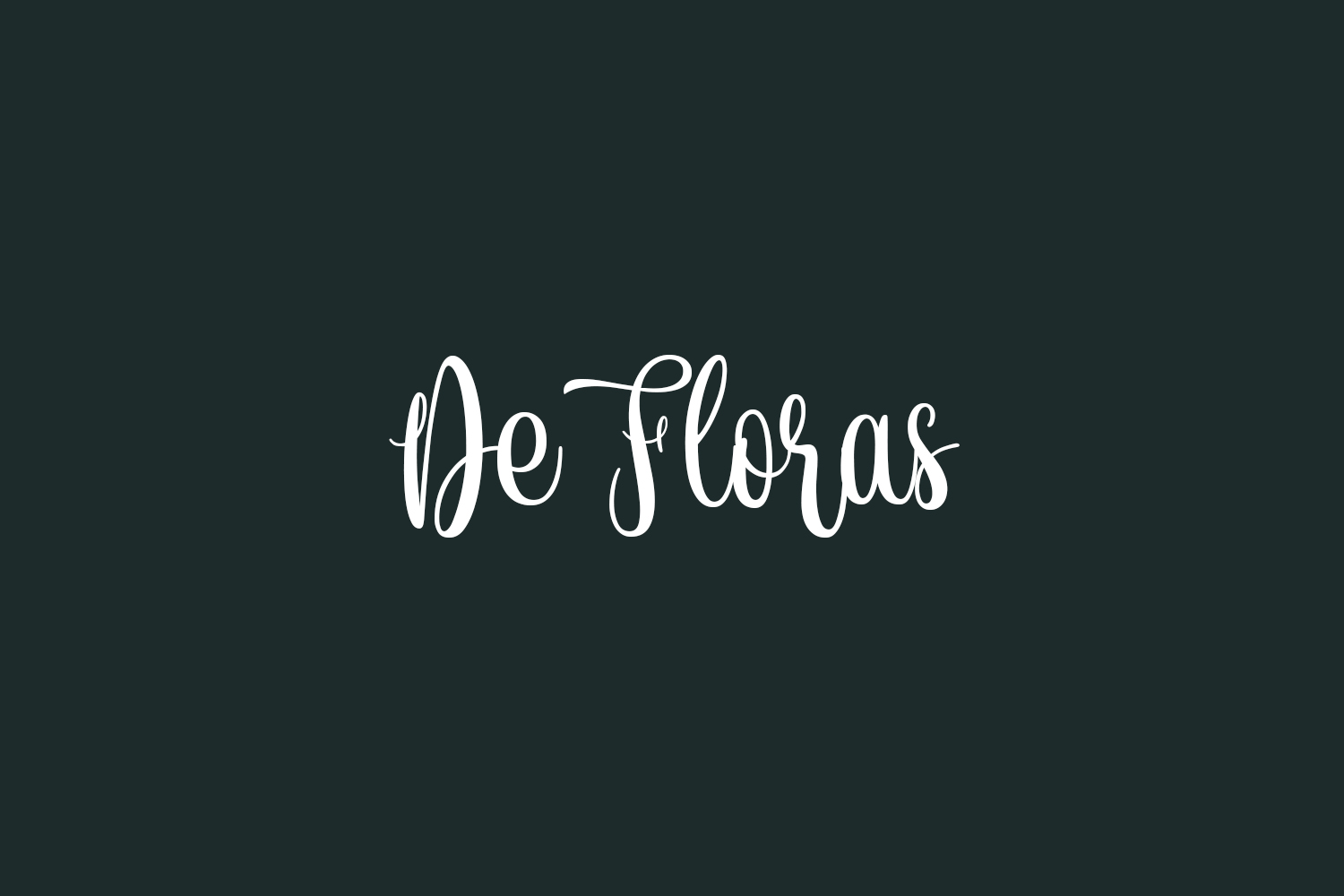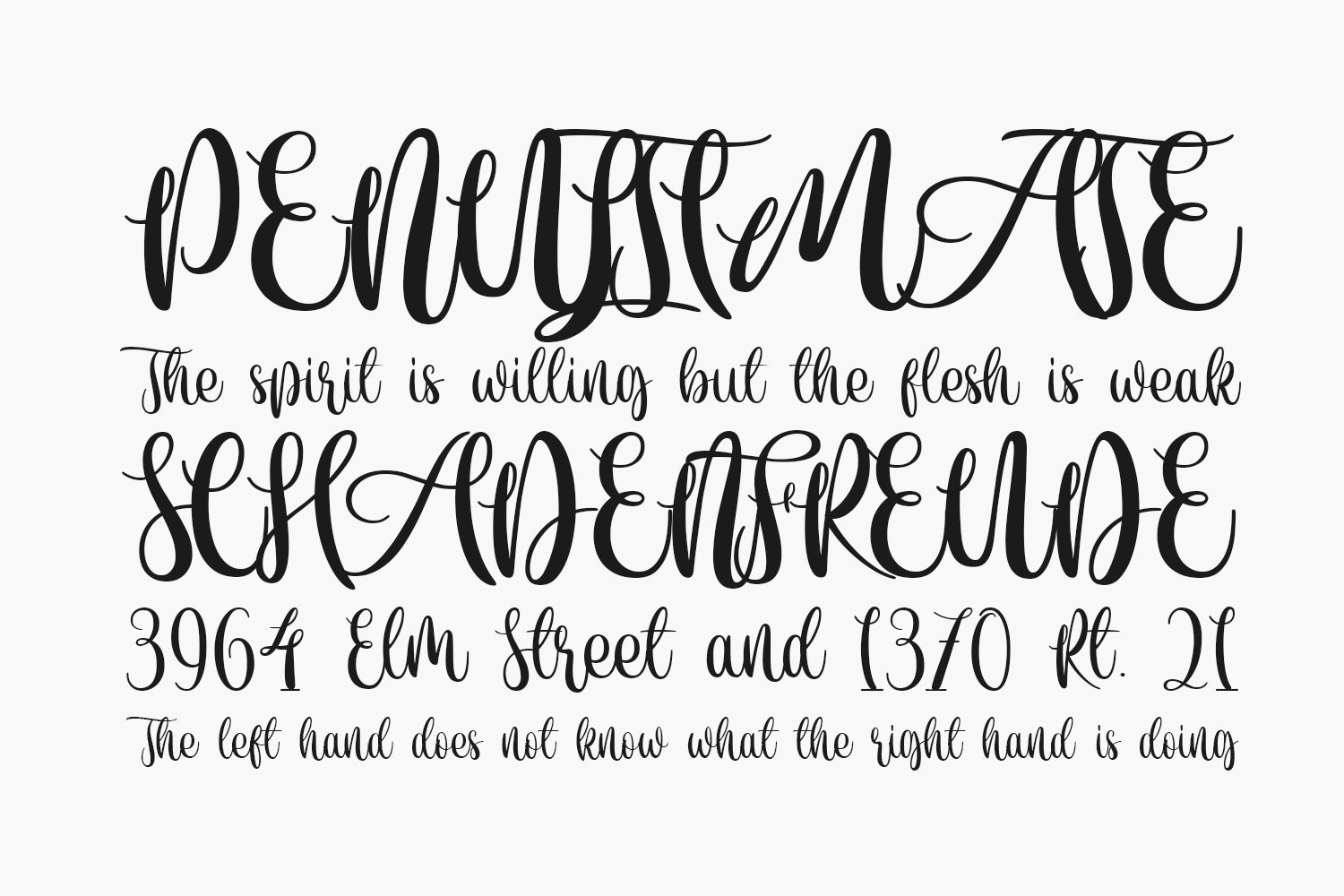
De Floras Free Font Family is a delicate and distinct handwritten font. It looks stunning on wedding invitations, thank you cards, quotes, greeting cards, logos, business cards, and every other design which needs a handwritten touch. De Floras Free Font Family was designed by Dikas Studio and is free for personal use only. Please purchase the full version for commercial use.